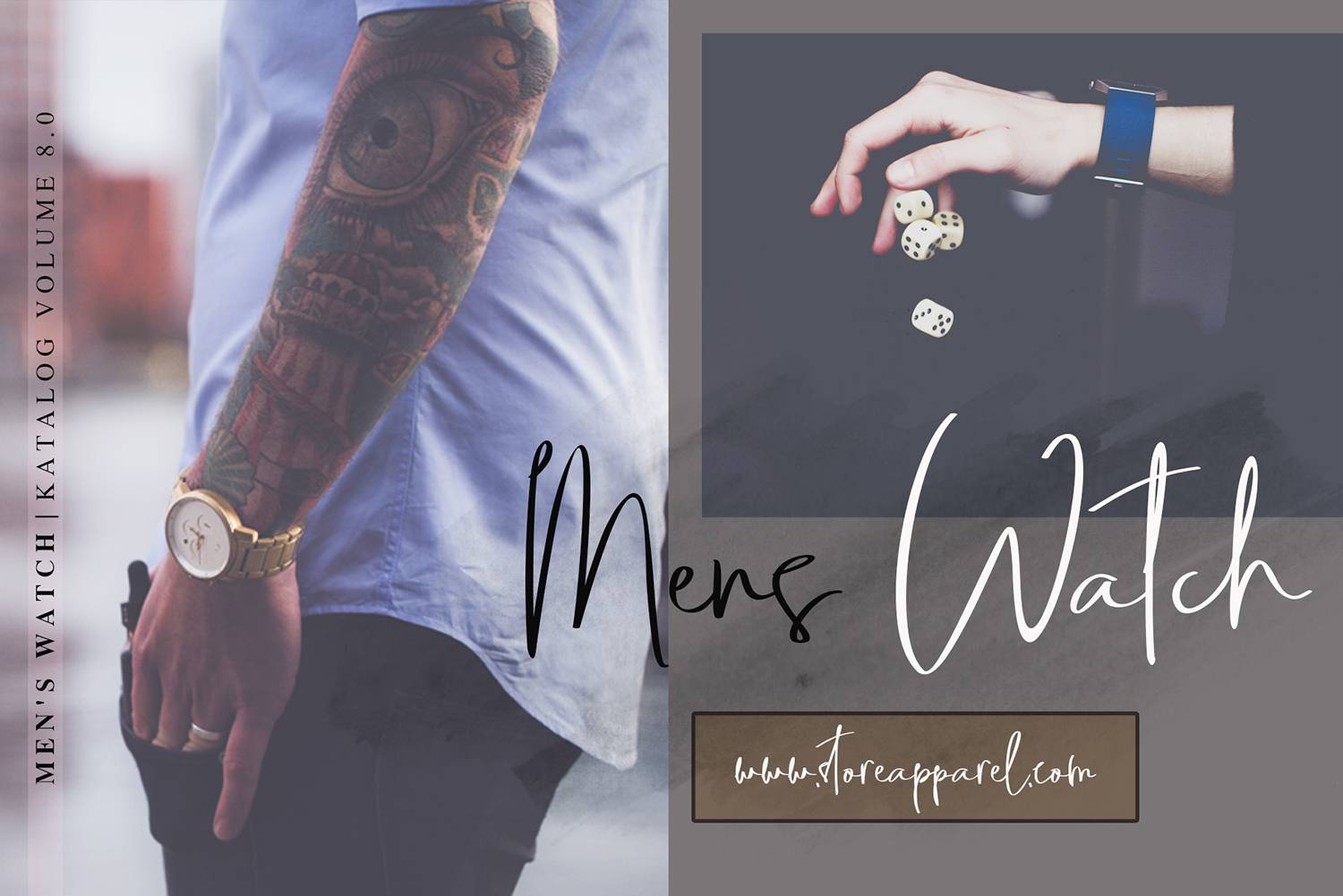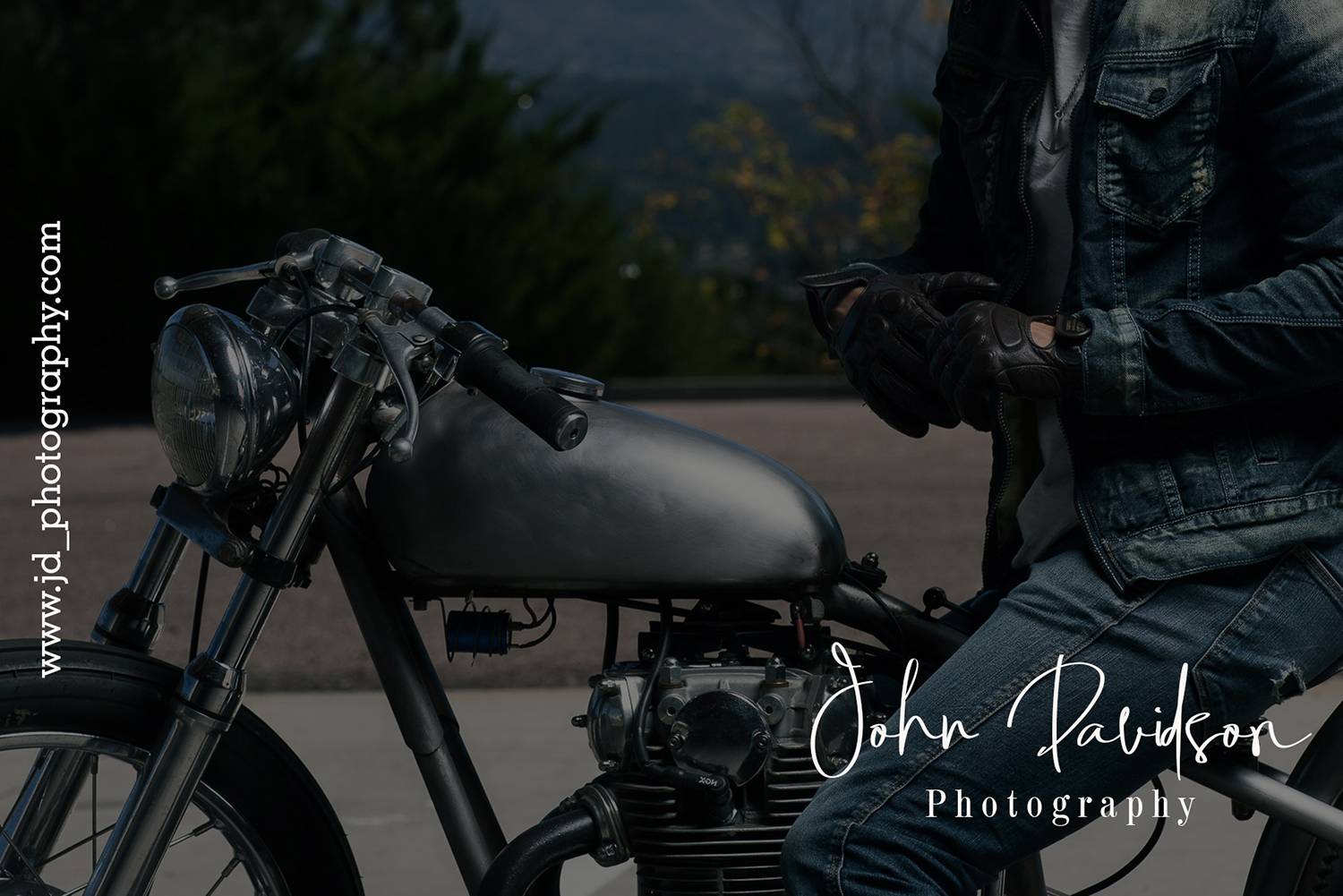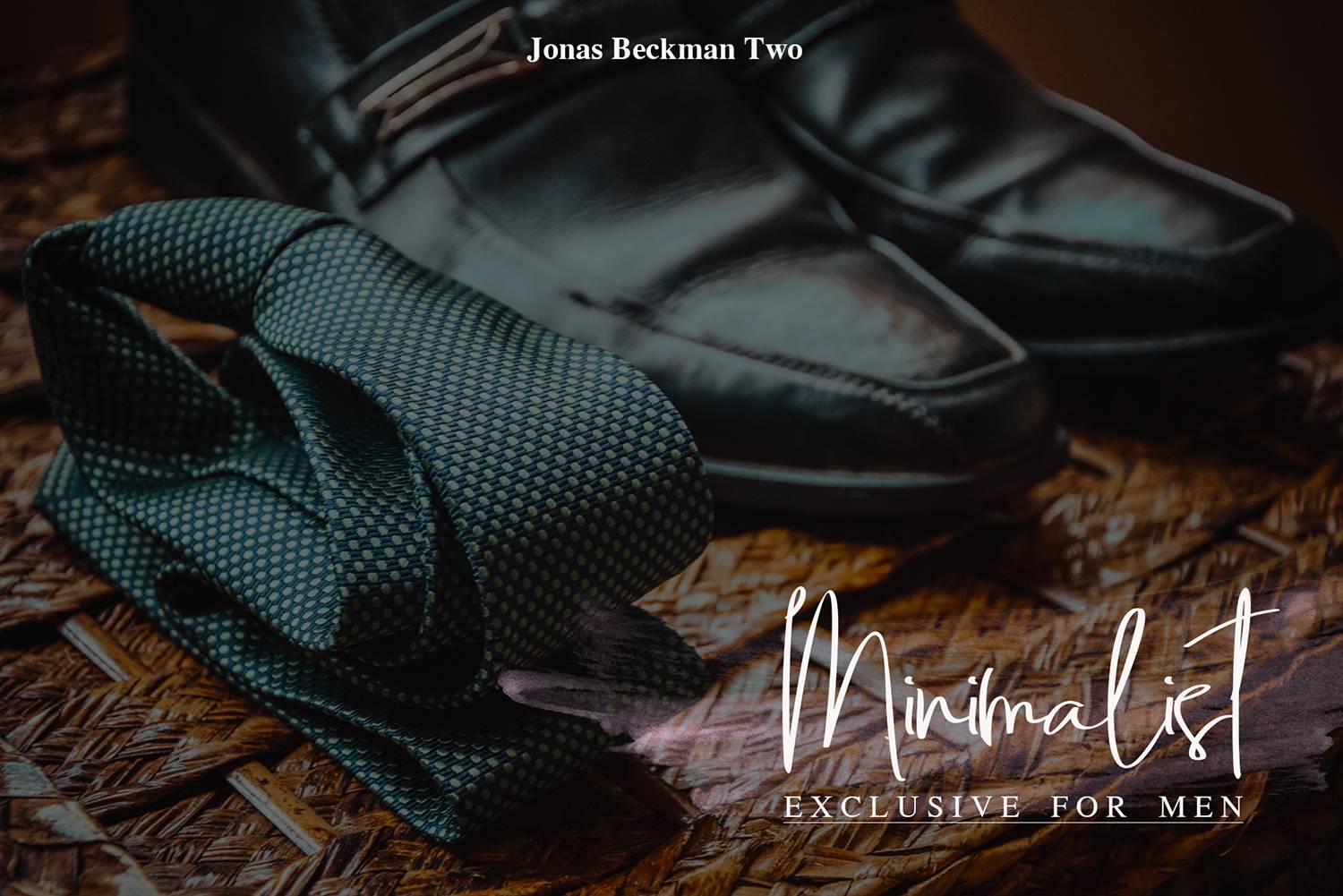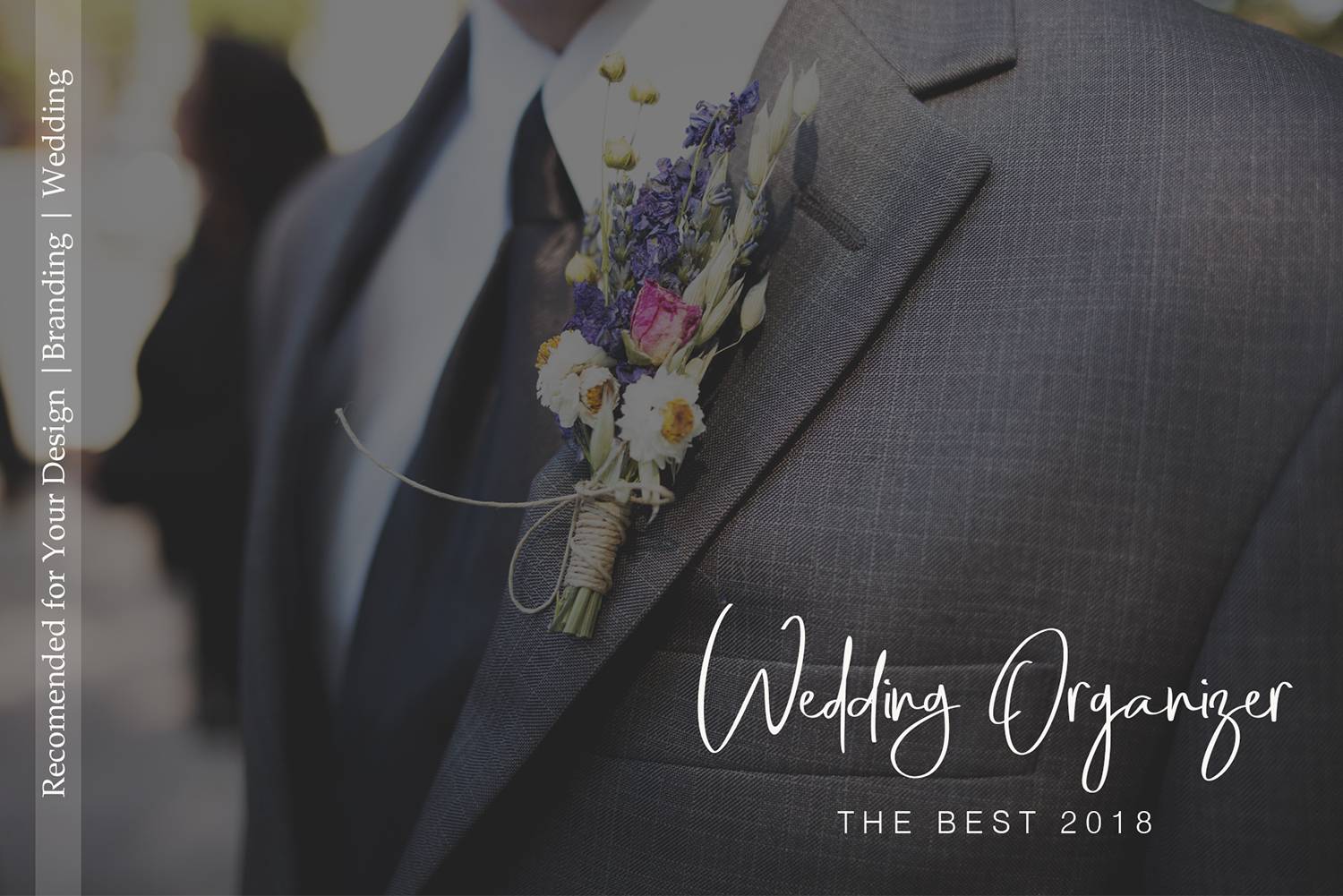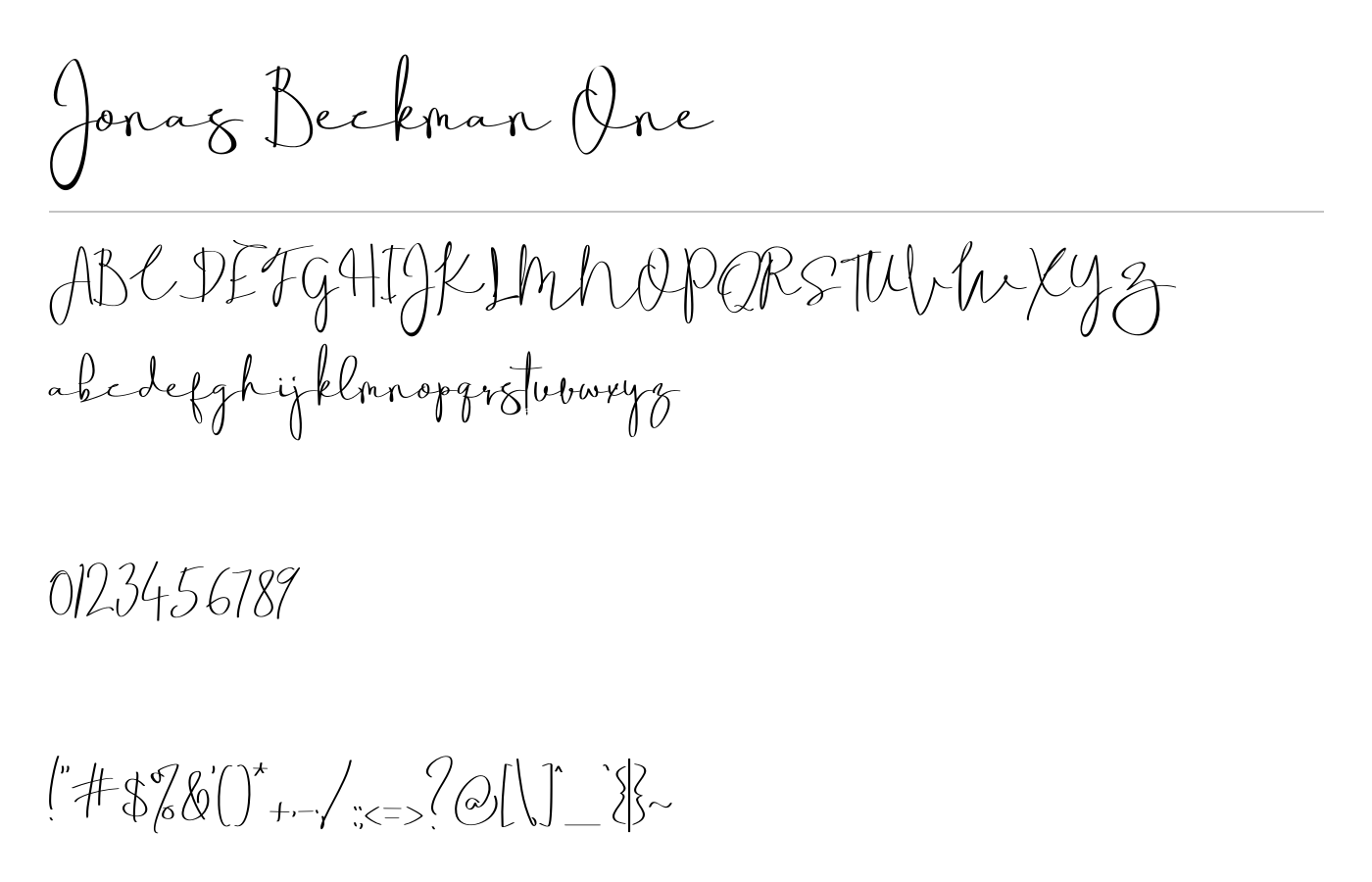
Jonas Beckman is a delicate, handwritten script font characterized by tall, slender letterforms and elegant, flowing strokes that create a natural, personal feel. Its light weight and airy spacing make it ideal for designs that require a touch of sophistication and intimacy, such as wedding invitations, branding for luxury or creative industries, and stylish editorial headers. This font’s playful yet refined personality brings a handcrafted charm that works beautifully in contexts where a friendly and artistic tone is desired.
Jonas Beckman Font
About Jonas Beckman Font
| Designer | Aldedesign 2018 |